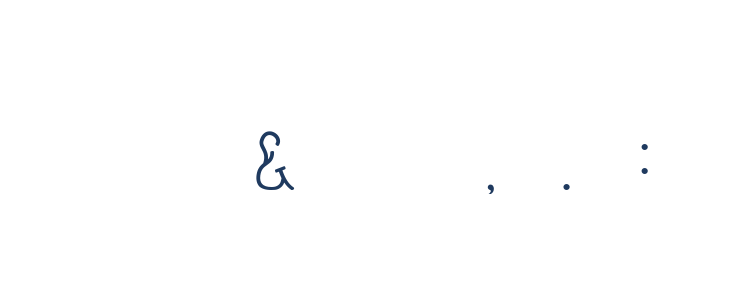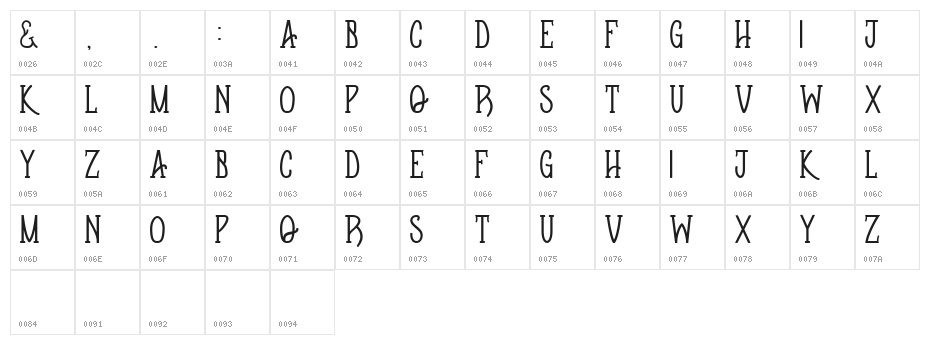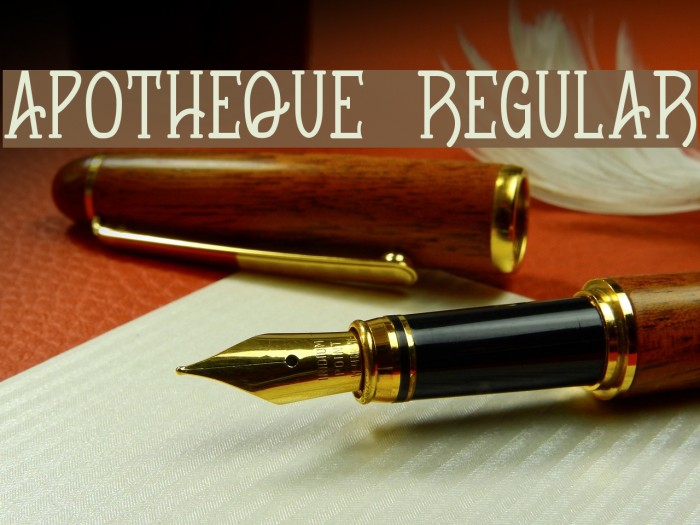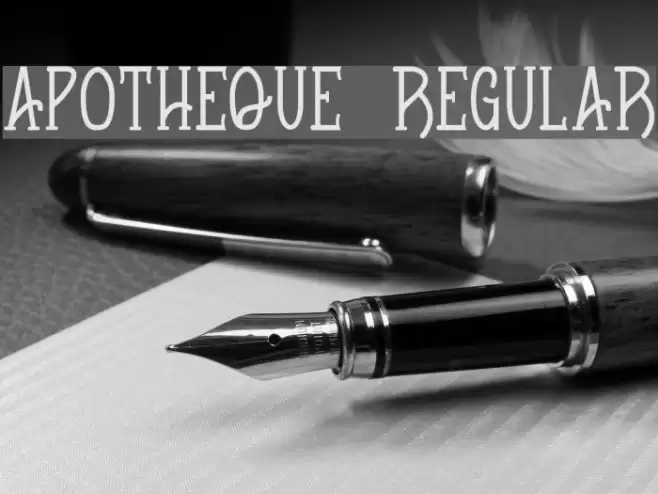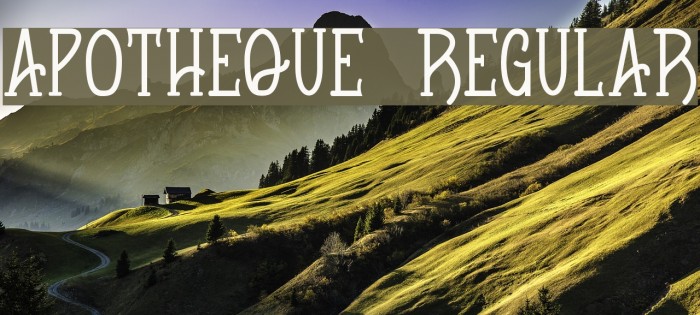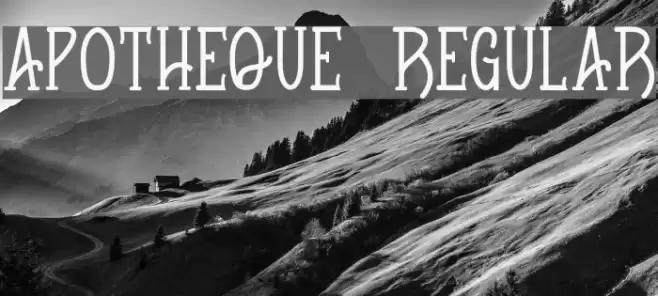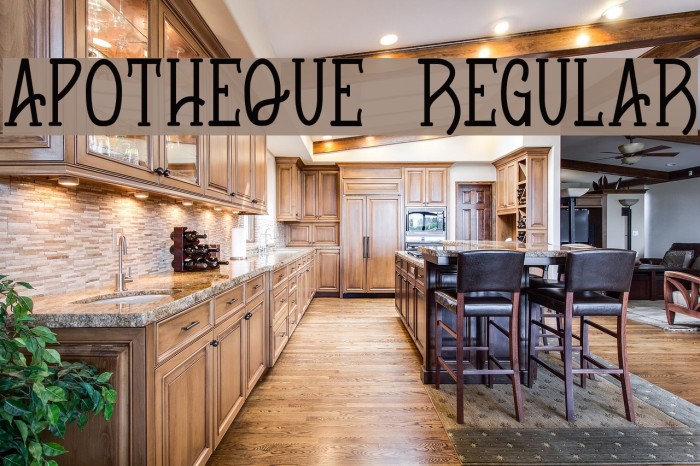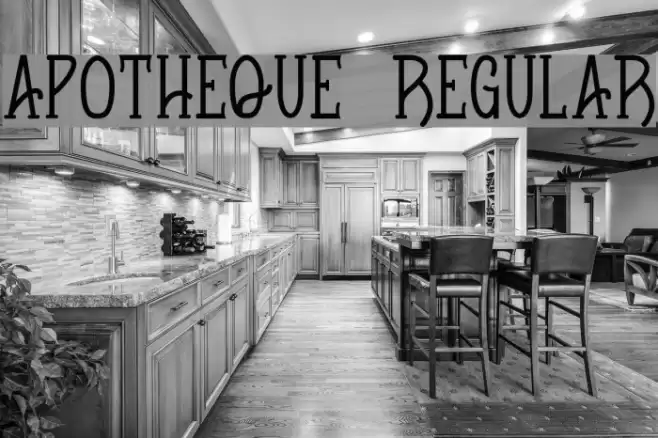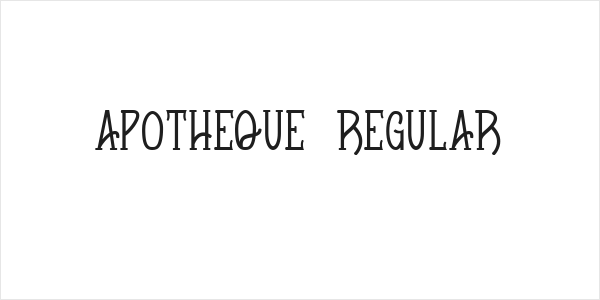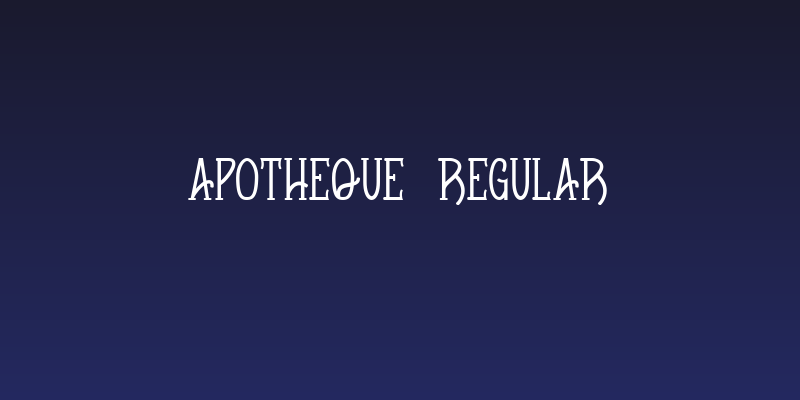
Apotheque Regular Font
Apotheque Regular Description
This font features a distinctive and artistic design with a blend of classic and modern elements. The uppercase letters are tall and narrow, with unique flourishes and curves that add a decorative touch. The lowercase letters maintain a consistent style, complementing the uppercase with their own subtle embellishments. The overall appearance is elegant and slightly whimsical, making it suitable for creative and expressive projects. The characters are well-spaced, ensuring readability while maintaining an artistic flair. The font includes a full set of uppercase and lowercase letters, numbers, and a selection of special characters, making it versatile for various design needs.